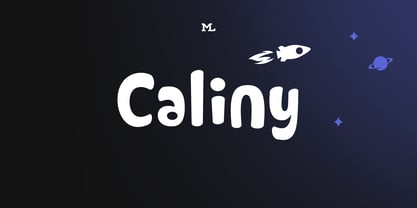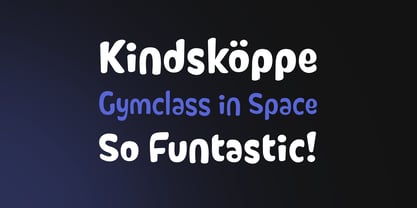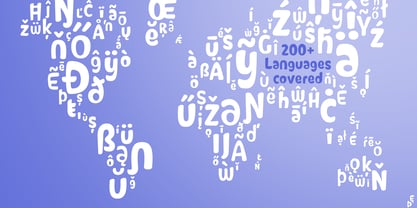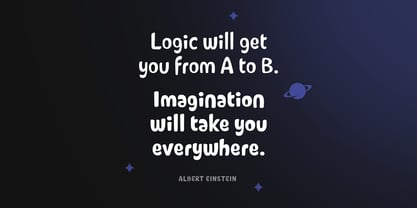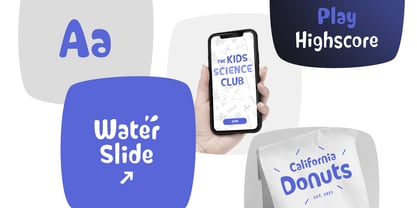
Caliny
by Marc Lohner
The Caliny Font Family was designed by Marc Lohner and published by Marc Lohner. Caliny contains 4 styles and family package options. More about this family
This cheerful font family combines cuteness and fun, making it a great choice for any kid’s app, book, toy, packaging, movie, theme park and so much more.
Caliny’s curves are drawn with care and love. It covers more than 200 languages and has some advanced typographic features, like case sensitive forms to offer.